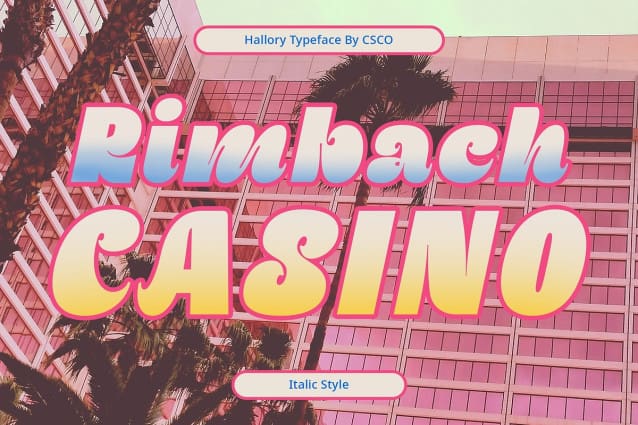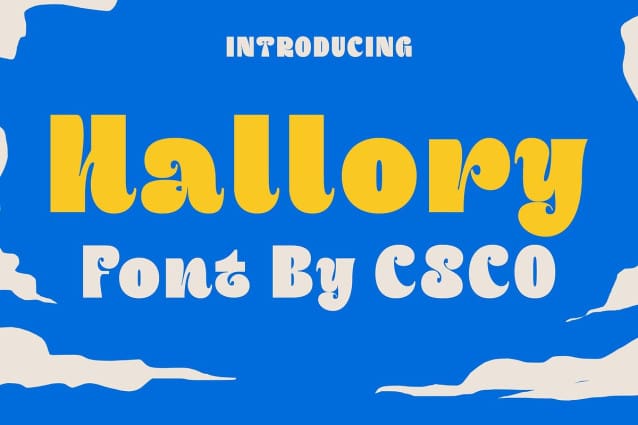
Hallory Display Font
Hallory Display Font : Playful Font for Cheerful Displays. A Playful and Cute Typeface Hallory Display is a delightful font with a playful and cute design, perfect for adding a touch of fun to any display project.
Suitable for All Ages With its cheerful demeanor, This font appeals to both children and adults alike. Its playful nature brings joy to any design, regardless of the audience’s age.
Ideal for Cheerful Displays This is the go-to choice for creating cheerful displays. Its fun and lively appearance instantly uplifts the mood and adds a playful vibe to any project.
Versatile and Fun-loving Whether it’s for posters, invitations, or branding, This is versatile and fun-loving. Its playful design adds personality and charm to a wide range of projects, ensuring they stand out with joy and positivity.
Spread Joy with Playful Typography This is a playful font that brings joy to any design. With its cute and fun-loving demeanor, it’s perfect for creating cheerful displays that appeal to both children and adults. From posters to branding, Hallory Display adds a touch of happiness and positivity to every project.